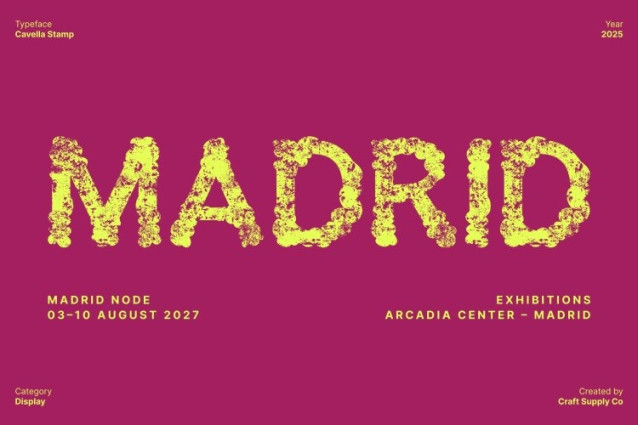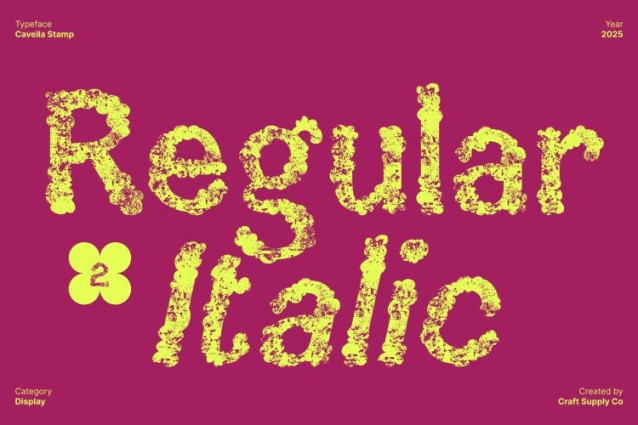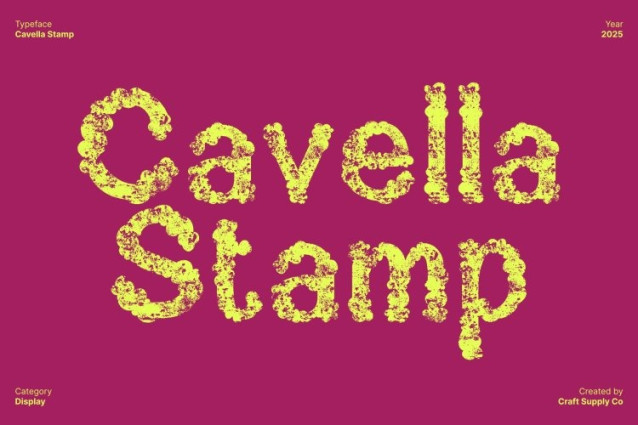
Cavella Stamp Font
Cavella Stamp Font This is a unique sans serif font designed to blend expressive drama with a touch of playful character. Its clean, modern foundation gives it a strong and versatile structure, while the added smoke effect introduces a hazy, atmospheric quality that instantly stands out.
Stamp Texture for a Raw, Artistic Finish
What makes this font unforgettable is its handcrafted stamp effect. This textured overlay brings rugged, imperfect edges that enhance the smoky look, giving every letter an artistic, gritty charm. The dual textures smoke and stamp create a rare visual synergy that feels expressive, dramatic, and unlike anything else.
Perfect for Posters, Branding, and Creative Displays
This font thrives in design spaces that demand attention. Its dramatic texture makes it ideal for posters, album covers, edgy branding, social media graphics, and experimental layouts. The playful undertone, combined with smoky depth, allows the font to feel fun yet impactful great for youth-centered projects, bold campaigns, or creative branding that aims to break the mold.
A One-of-a-Kind Font with Expressive Style
Blending modern sans serif clarity with smoky flair and textured stamp details, this font offers a typographic experience that is both dramatic and playfully adventurous. Every character delivers uniqueness, artistic expression, and visual excitement.